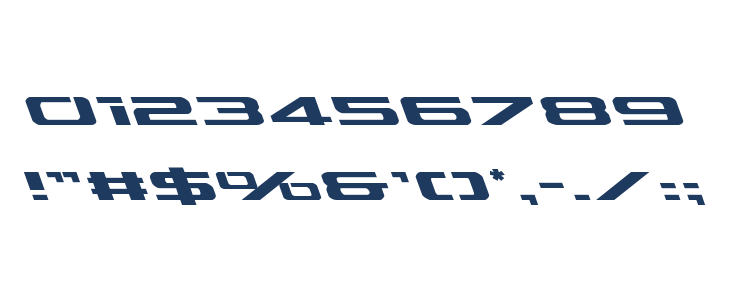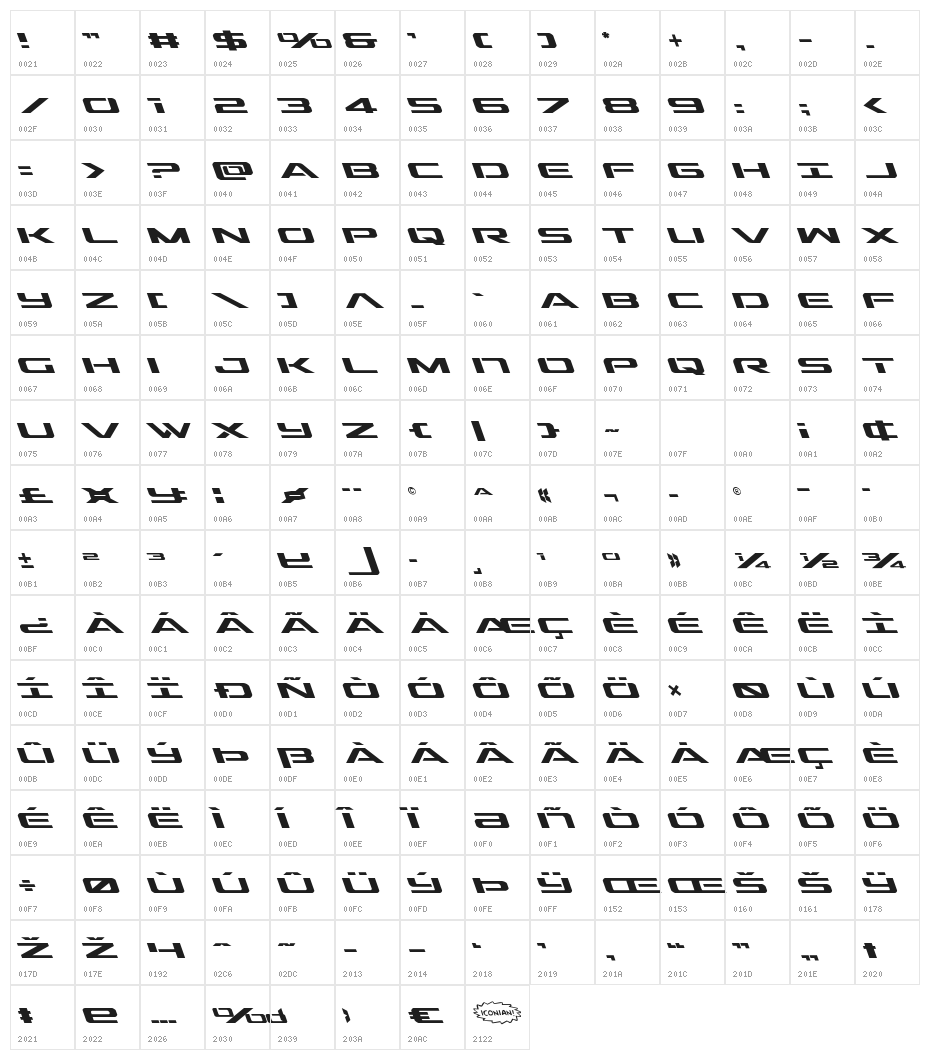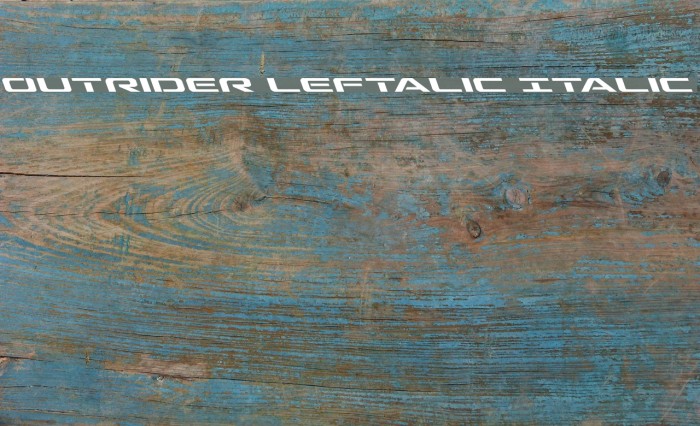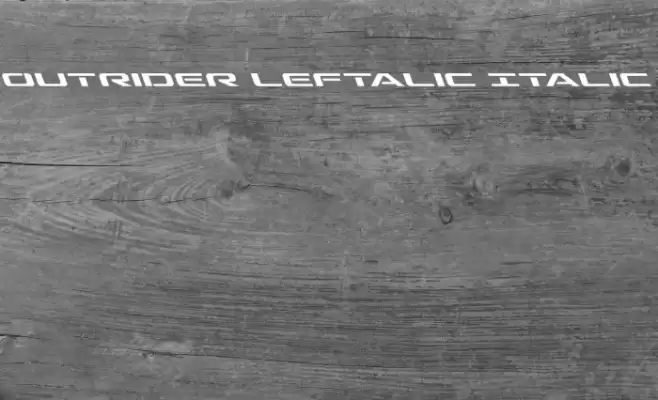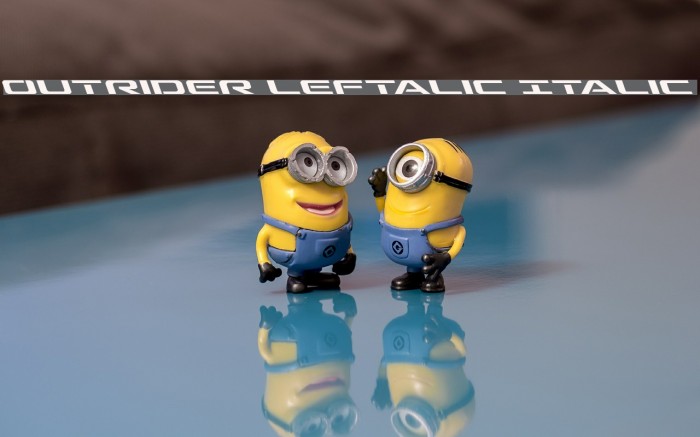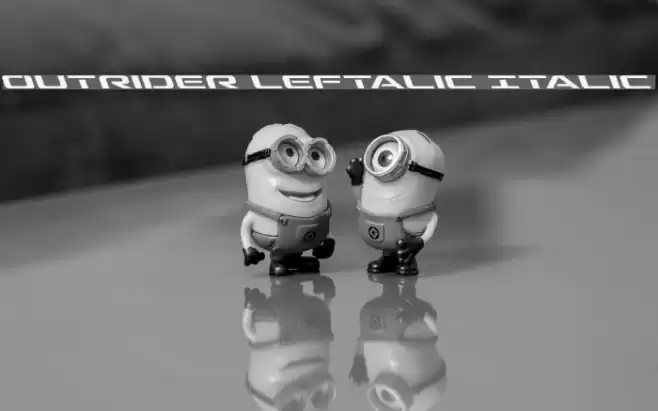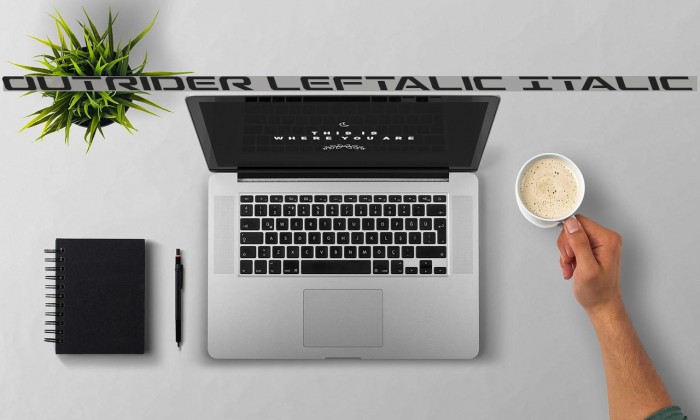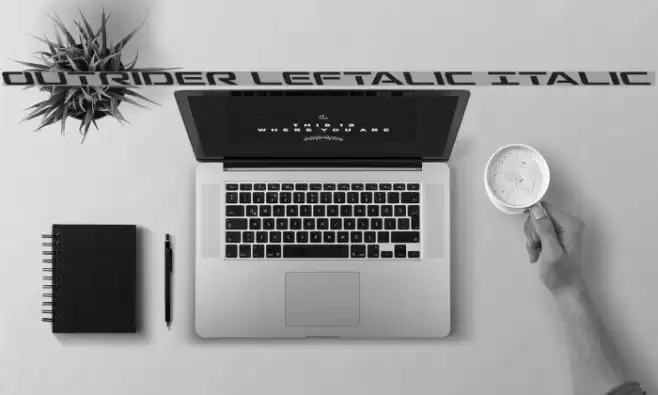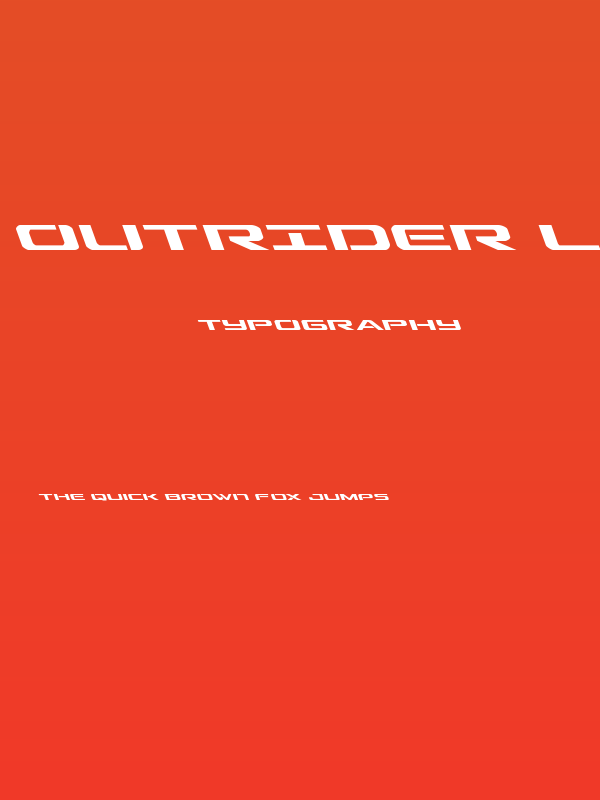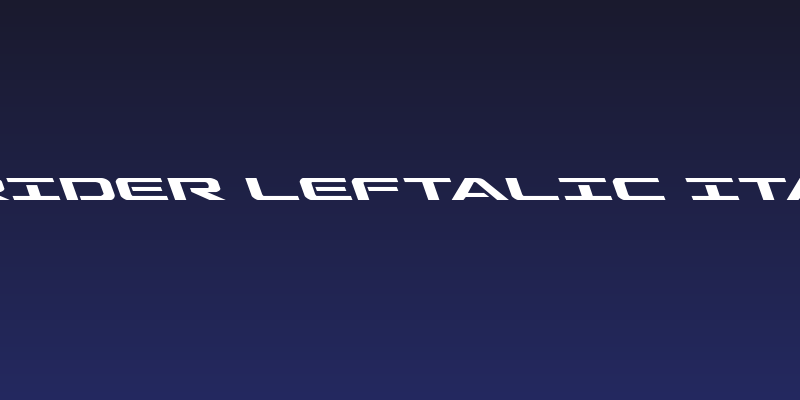
Outrider Leftalic Italic Font
Outrider Leftalic Italic Description
This font features a futuristic and dynamic style, characterized by its sharp angles and geometric forms. The letters are slanted, giving a sense of motion and speed, which is enhanced by the italicized design. The uppercase and lowercase letters maintain a consistent style, with a bold and assertive presence. The numerals and special characters follow the same angular and sleek design, making them suitable for modern and tech-oriented projects. The font's unique style makes it stand out, ideal for creative and innovative applications.
| Proposed Projects | Ideal for tech branding, sci-fi themed designs, video game titles, and modern advertising. |